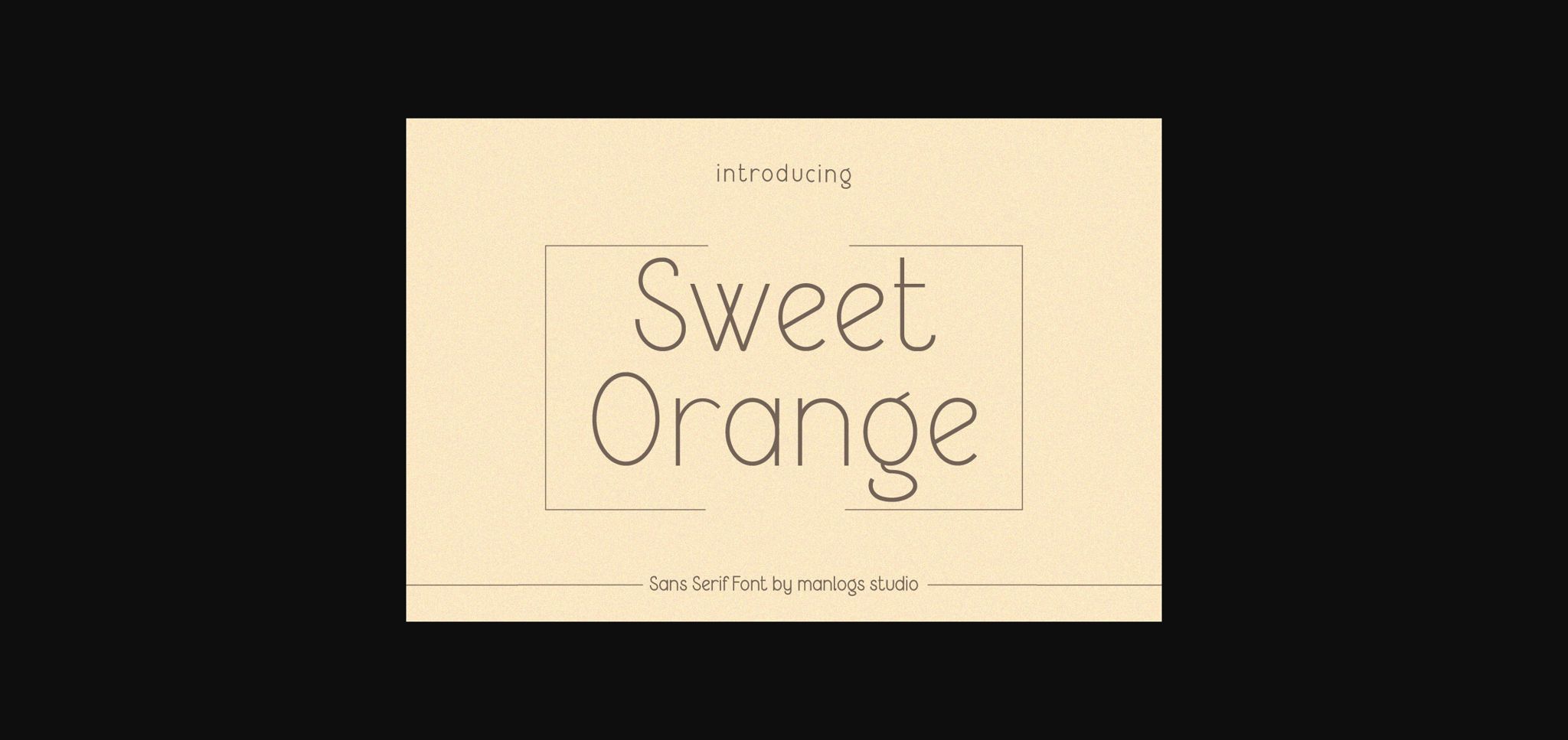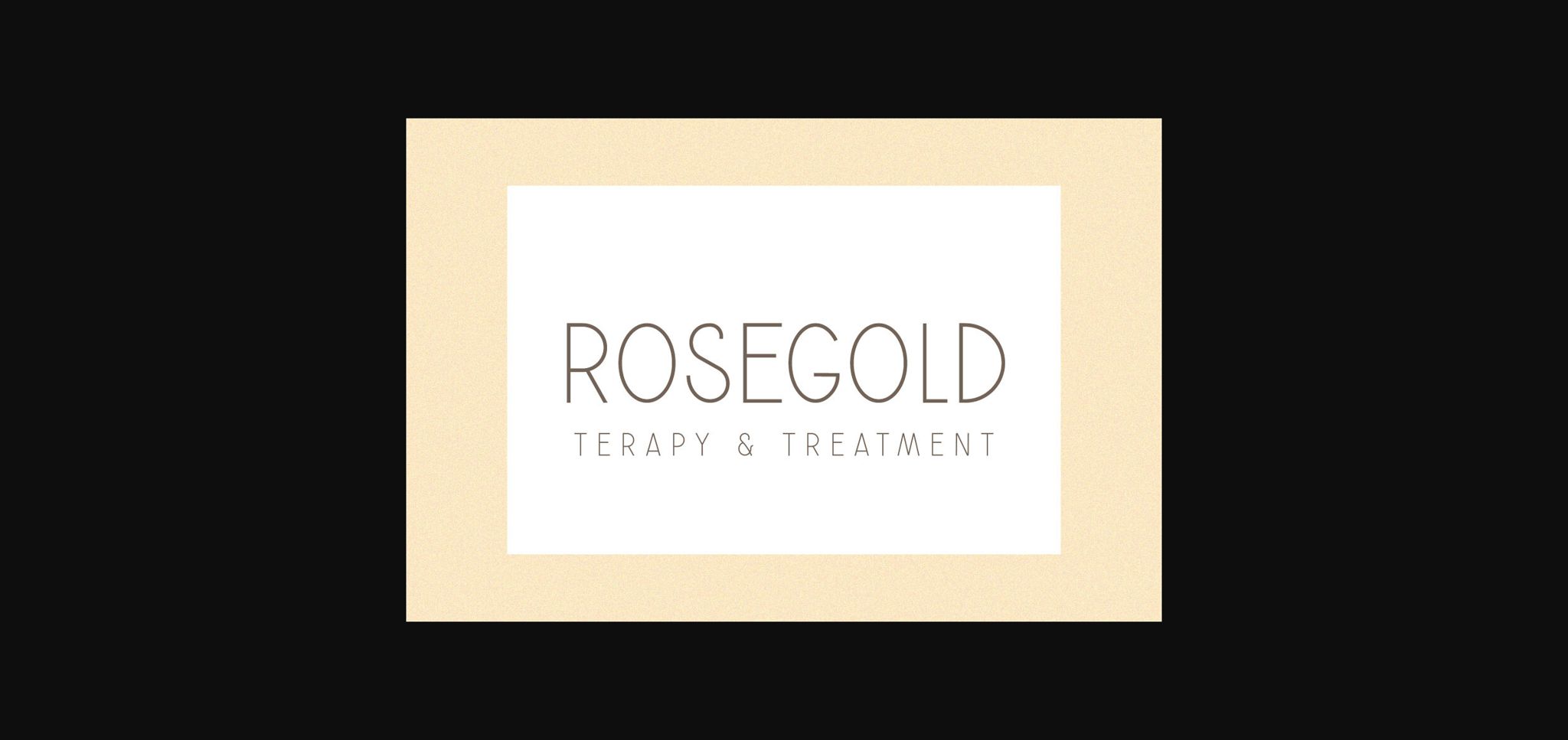
About Sweet Orange Font
Sweet Orange is a simple and versatile sans-serif font designed for a clean retro look. With its vintage-balanced proportions, this font is perfect for creating a minimalist aesthetic.